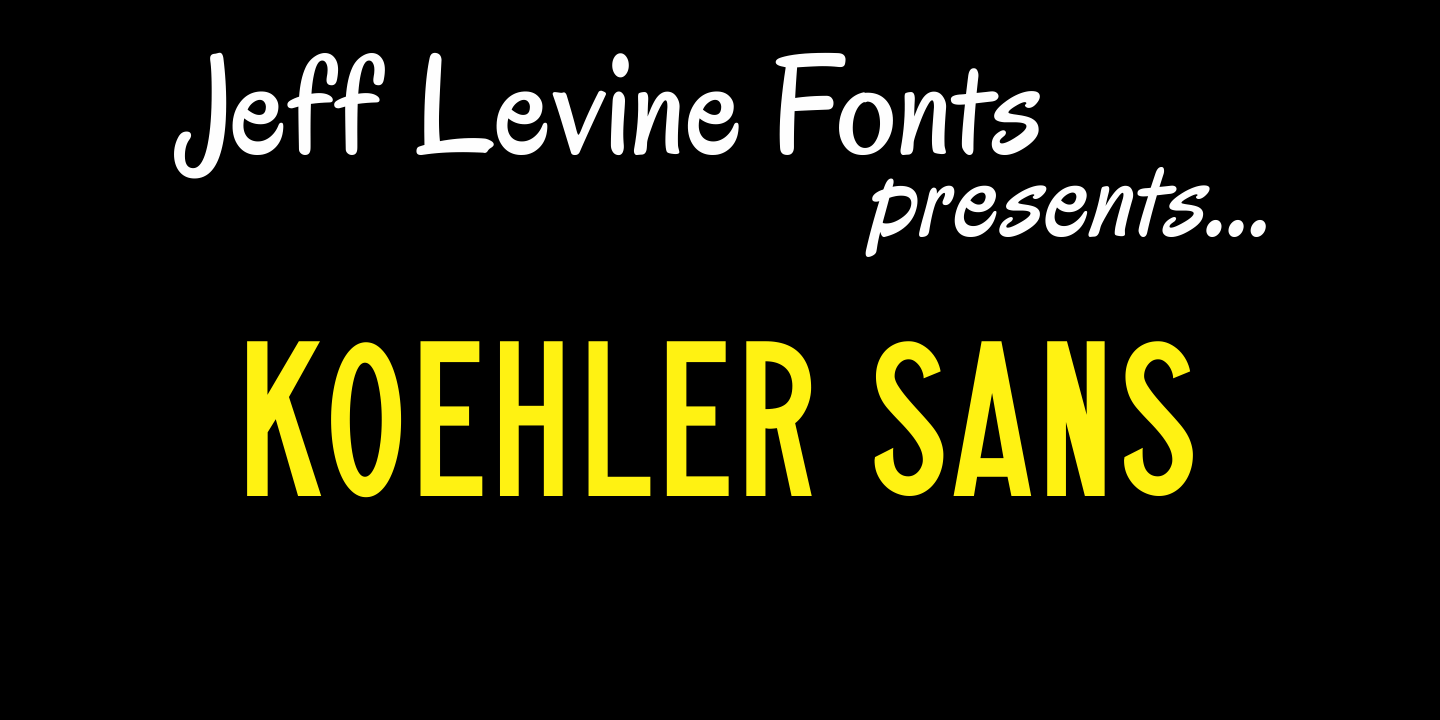
Koehler Sans
Koehler Sans JNL was inspired by a set of cardboard sign kit letters made by the Koehler Sign Company of Missouri (presumably) in the late 1940s or early 1950s.
Not much is known about them, other than the letters looked interesting enough to turn into a font.